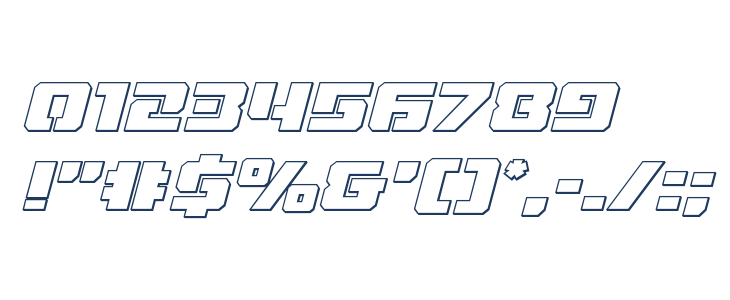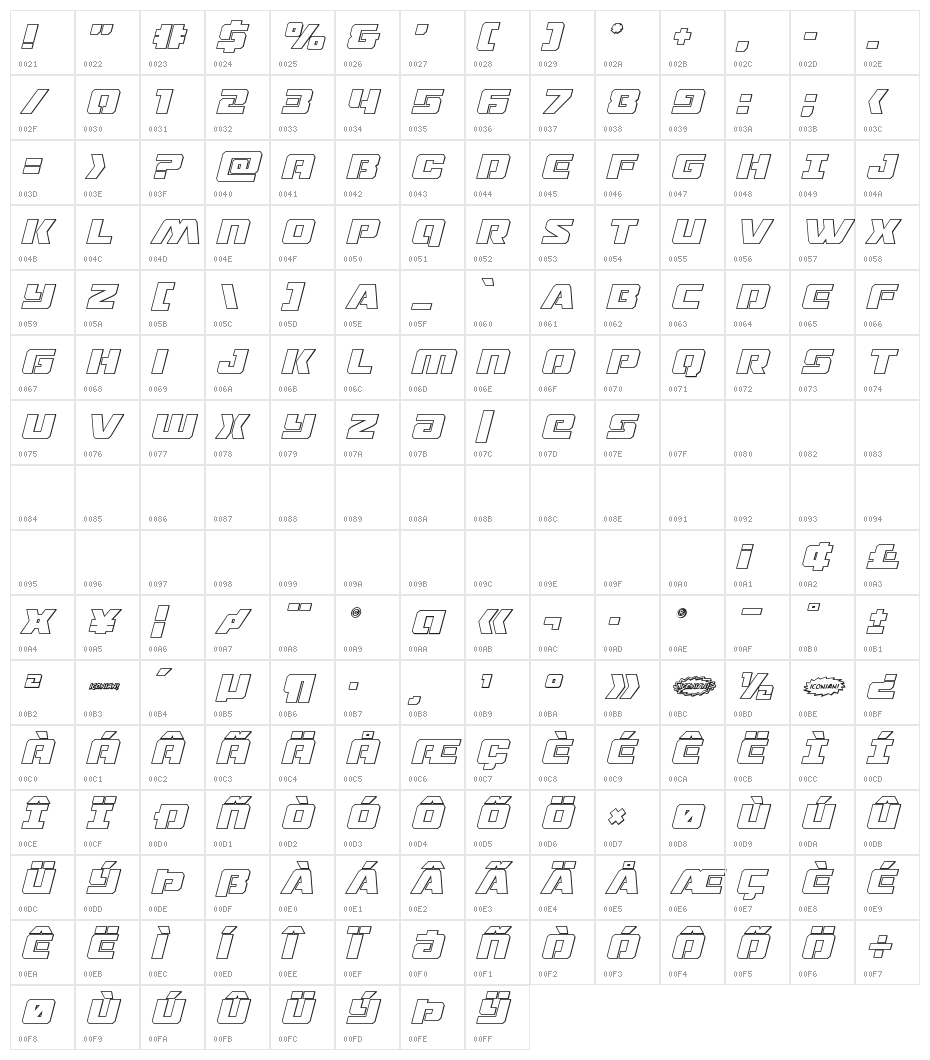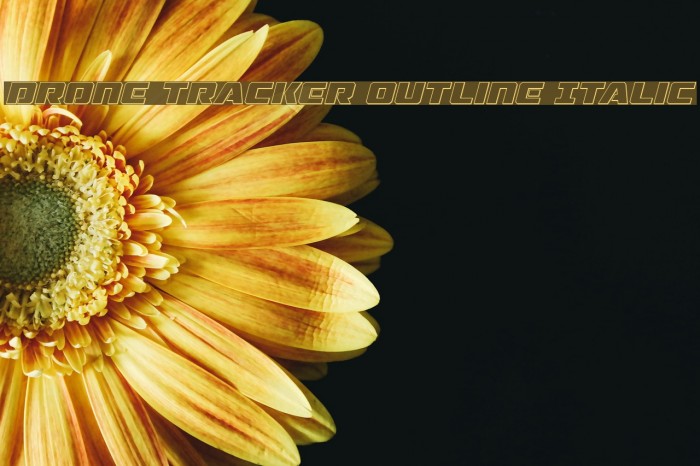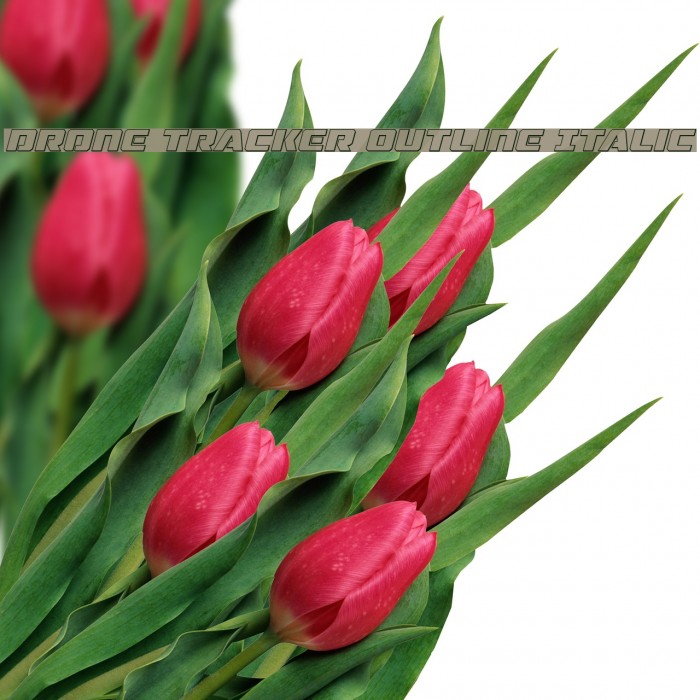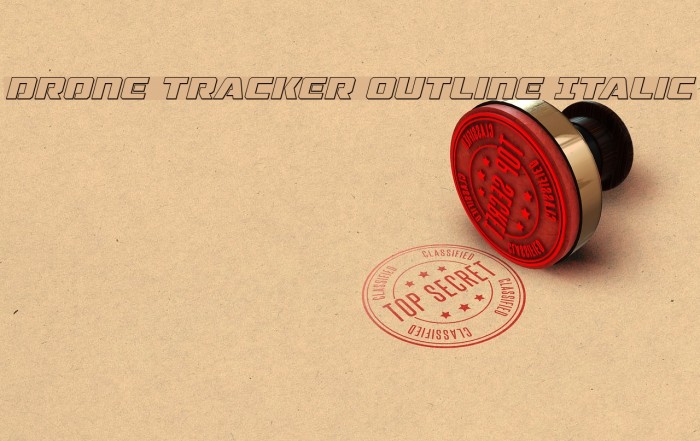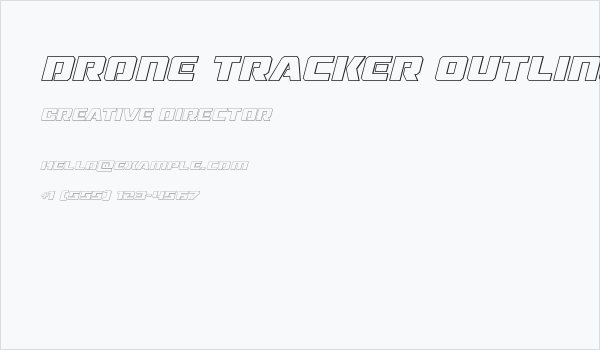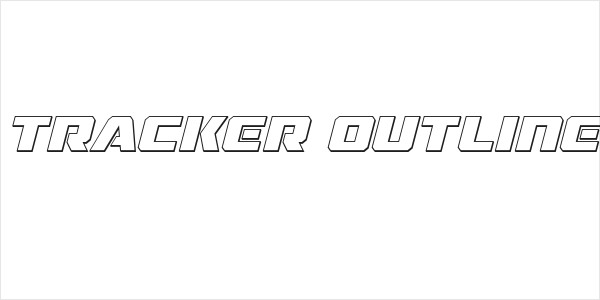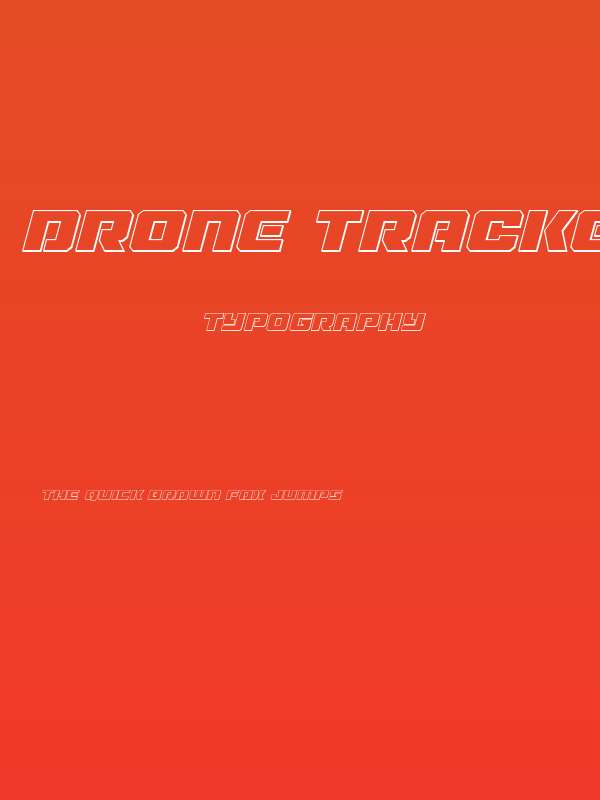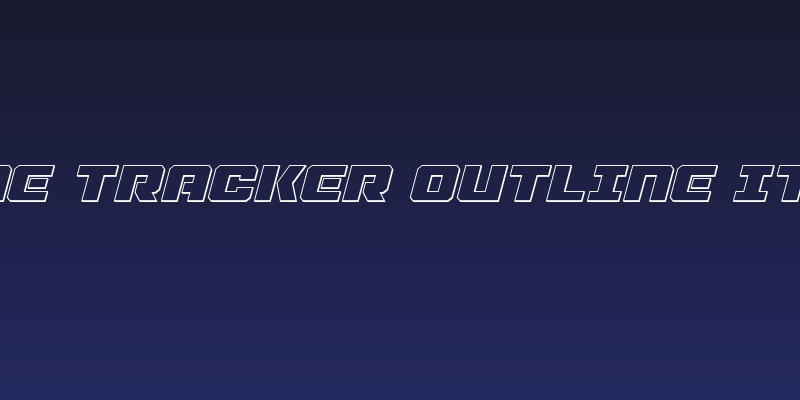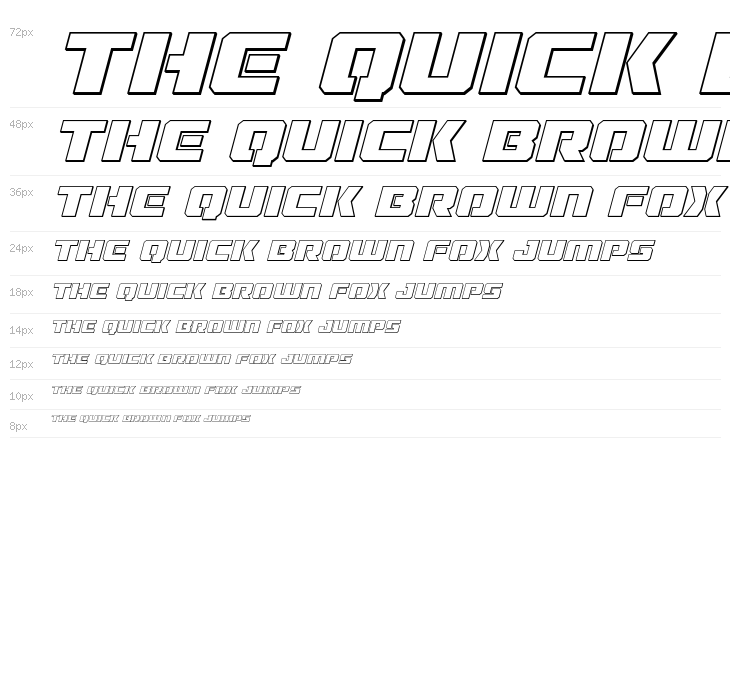
Drone Tracker Outline Italic Font
Drone Tracker Outline Italic Description
This font features a futuristic and angular design with an outline style that gives it a distinctive, tech-inspired look. The characters are italicized, adding a sense of motion and dynamism. Each letter is crafted with sharp edges and geometric shapes, creating a modern and sleek appearance. The uppercase and lowercase letters maintain a consistent style, while the numbers and special characters complement the overall aesthetic. This font's outline nature makes it ideal for designs that require a bold yet airy presence, allowing for creative use of background colors and textures.
| Proposed Projects | Ideal for technology branding, sci-fi themed designs, video game interfaces, and modern advertising. |